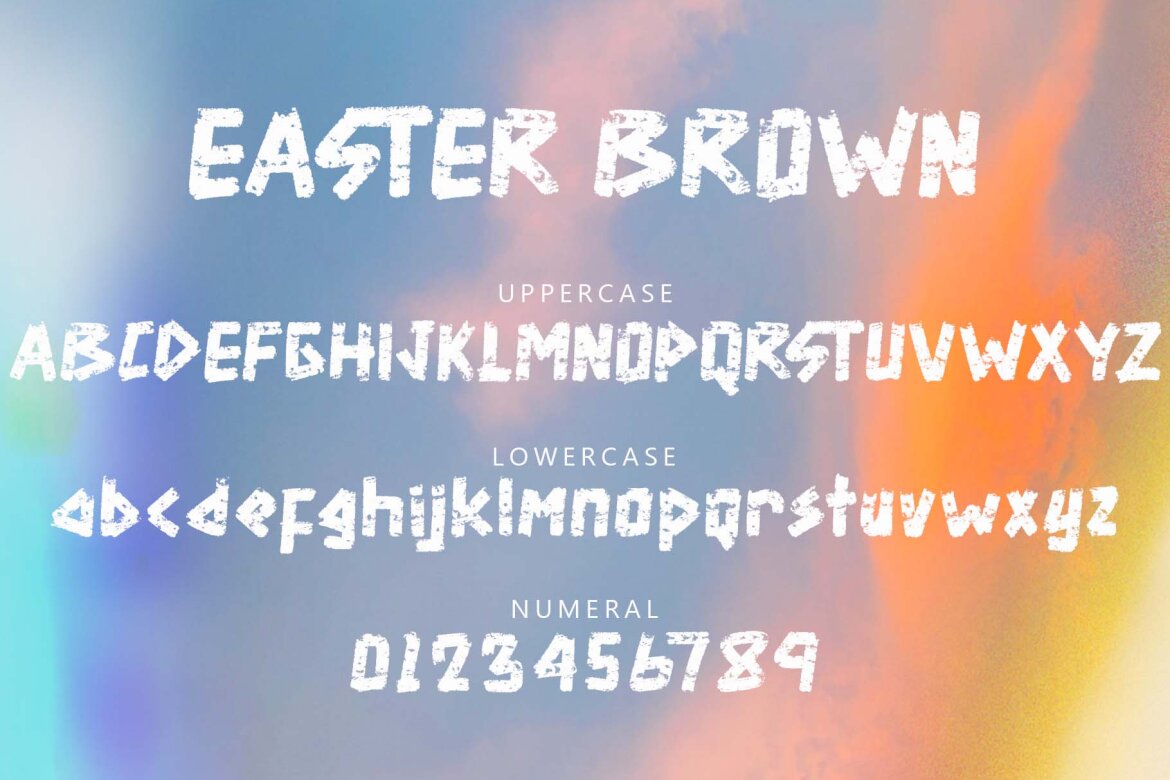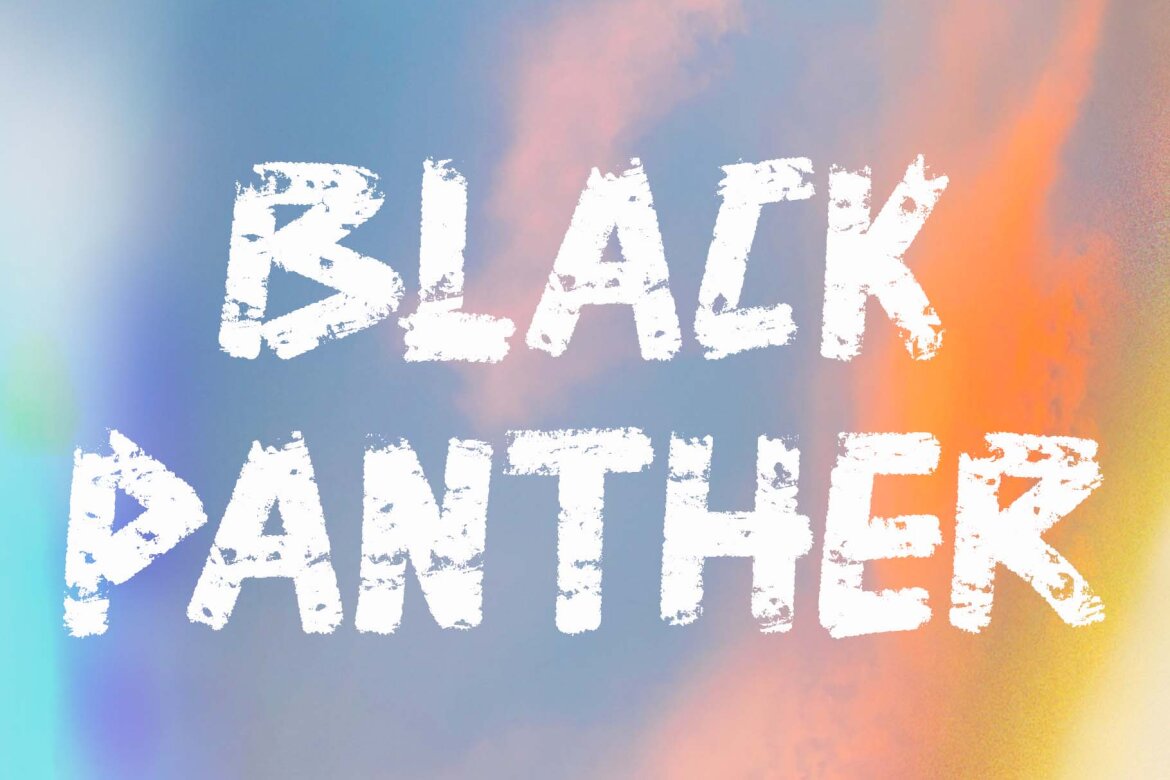
Easter Brown FREE Font
Easter Brown
"Easter Brown" is an elegant and quality brush font. This font is equipped with uppercase, lowercase, numeral, punctuations and multilingual support. It is suitable for easter, holiday, spring, summer, halloween, movie titles, comic titles, stickers, posters, banners, prints, branding and others.
• lowercase
• numeral
• punctuations
• uppercase